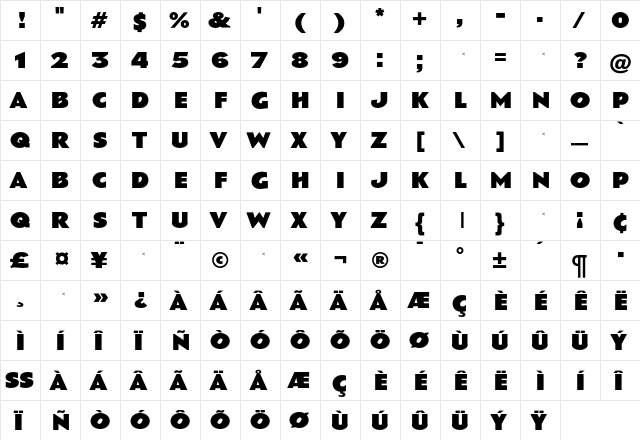
BasutoRR Regular
Design Context for BasutoRR Typeface
BasutoRR is a composed and adaptable typeface that performs quietly and consistently across a wide range of design contexts.